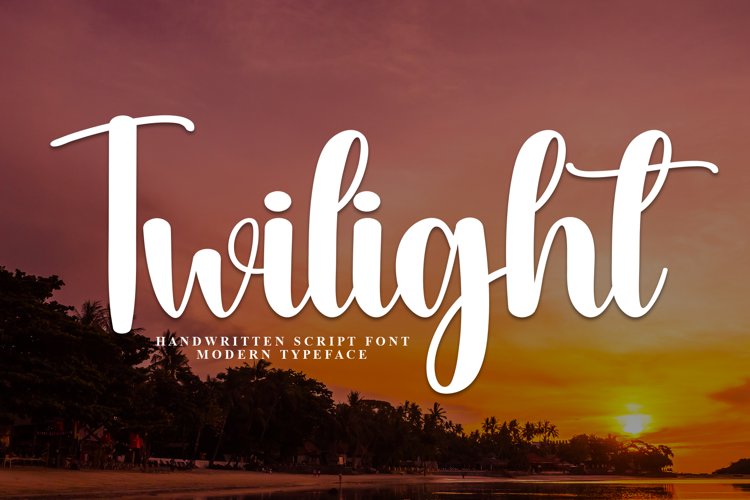
Twilight Blossom - Bouncy Script
Twilight Blossom is a bouncy script font. With modern calligraphy script and bouncy style, this font looks very beautiful and attractive. And this font has a unique and beautiful swash that will make your project even more beautiful and perfect. It is suitable for logos, branding, posters, quotes, product packaging, apparel, wedding, crafting, svg, greeting cards and more.